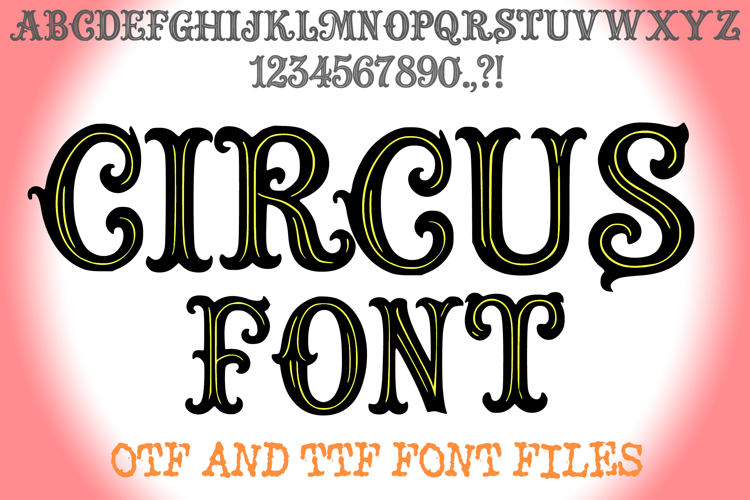
Circus Alphabet Lettering ABC Carnival Text Font OTF
Step right up to the greatest show in typography with the majestic Circus Font. This bold, vintage-inspired display serif typeface features dramatic, western-style spurs, elegant sweeping curves, and intricate pinstripe inline details that perfectly recreate the magic of retro carnivals, antique fairgrounds, and classic vaudeville playbills. It stands as an exceptional choice for headlines, posters, and craft designs that require a grand, nostalgic, and theatrical presence.